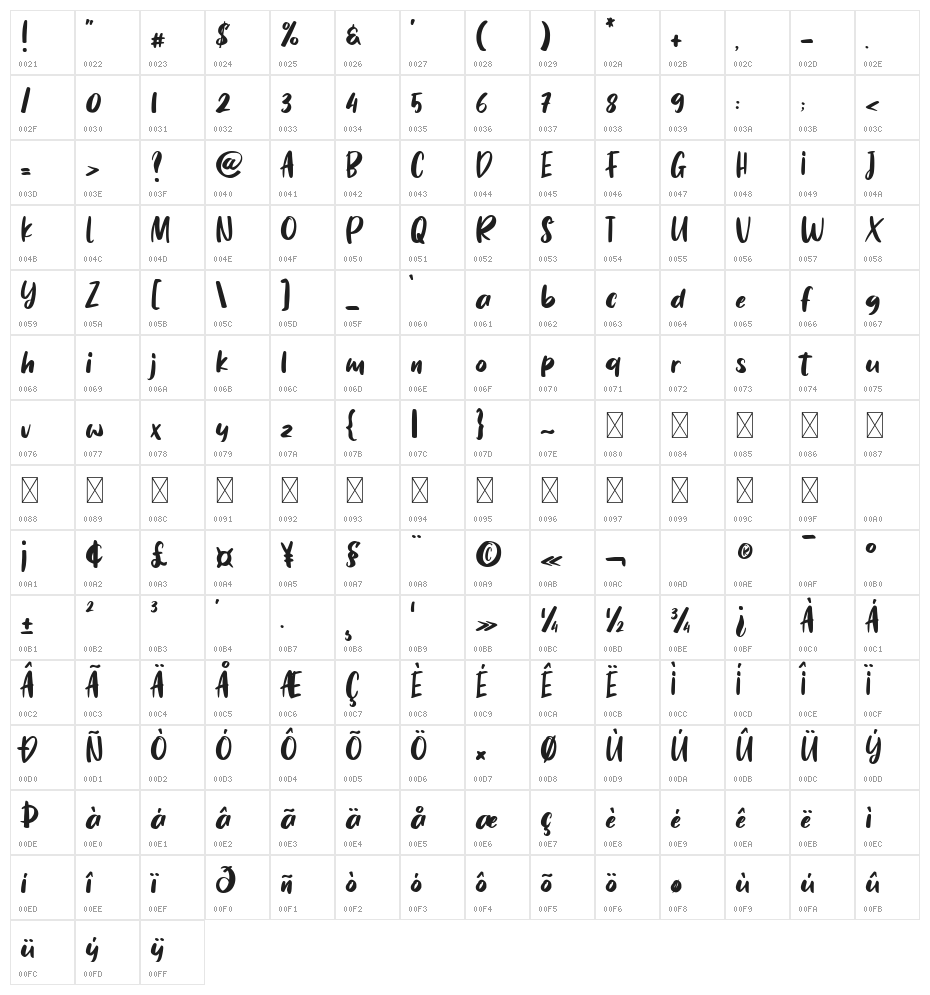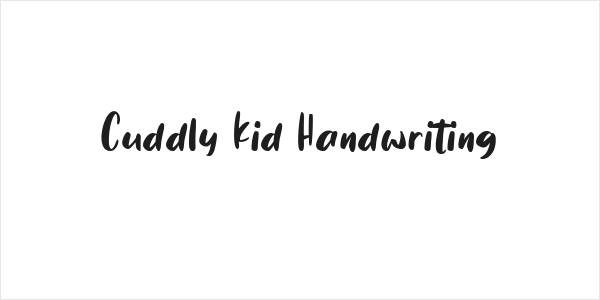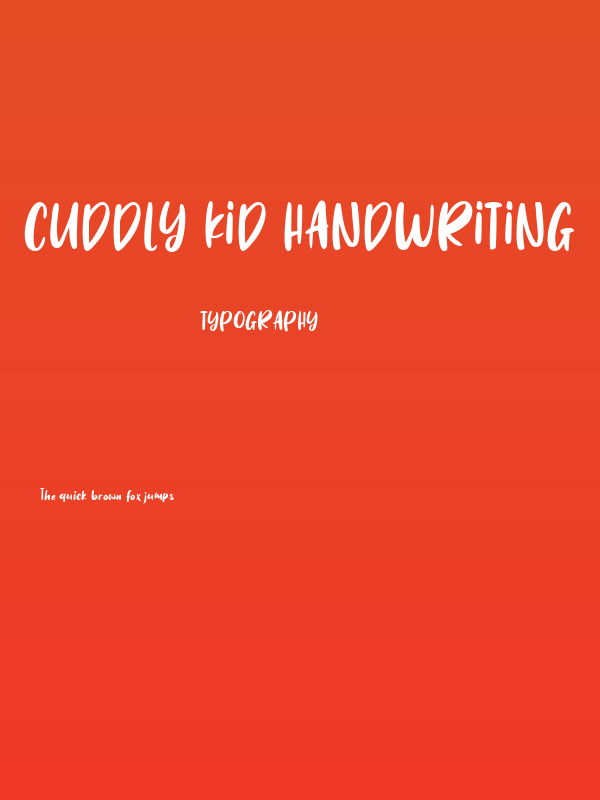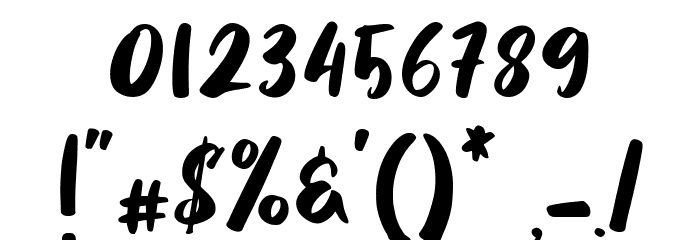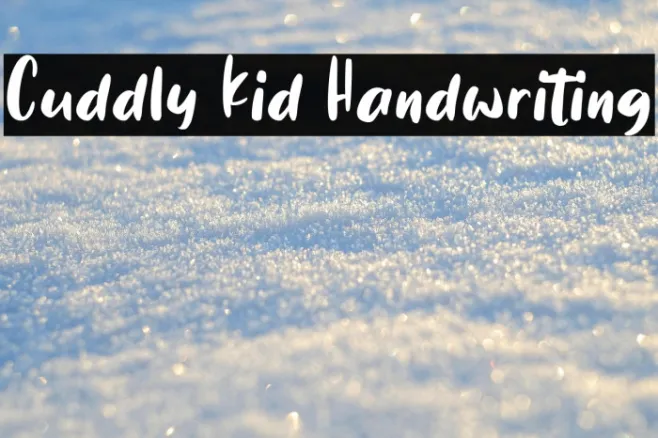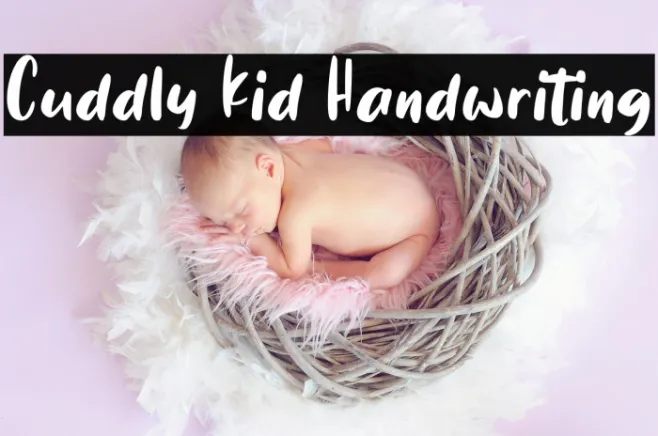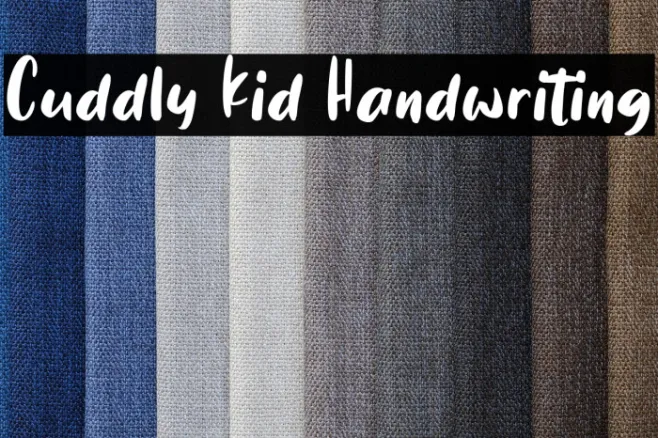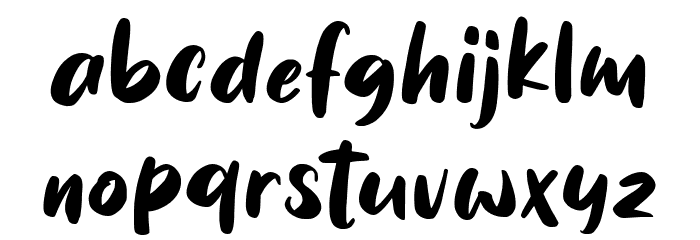
Cuddly Kid Handwriting Font
Cuddly Kid Handwriting Description
This font exudes a playful and whimsical charm, reminiscent of a child's handwriting. The letters are bold and rounded, with a slightly irregular baseline that adds to its casual and friendly appearance. The strokes are thick and consistent, giving it a strong presence on the page. The uppercase and lowercase letters are well-proportioned, maintaining a cohesive look throughout. Numbers and special characters are included, each maintaining the same playful style. This font is perfect for projects that require a touch of fun and creativity, such as children's books, playful branding, or informal invitations.
| Proposed Projects | Ideal for children's books, playful branding, informal invitations, and creative projects. |